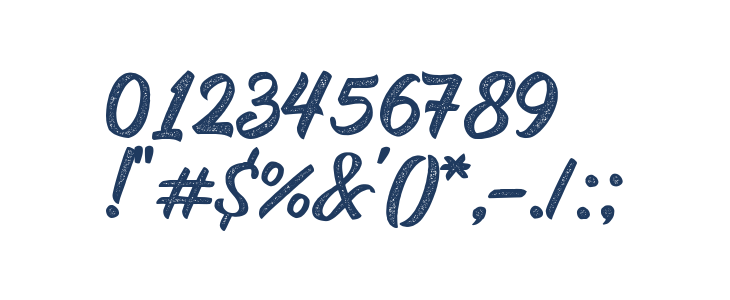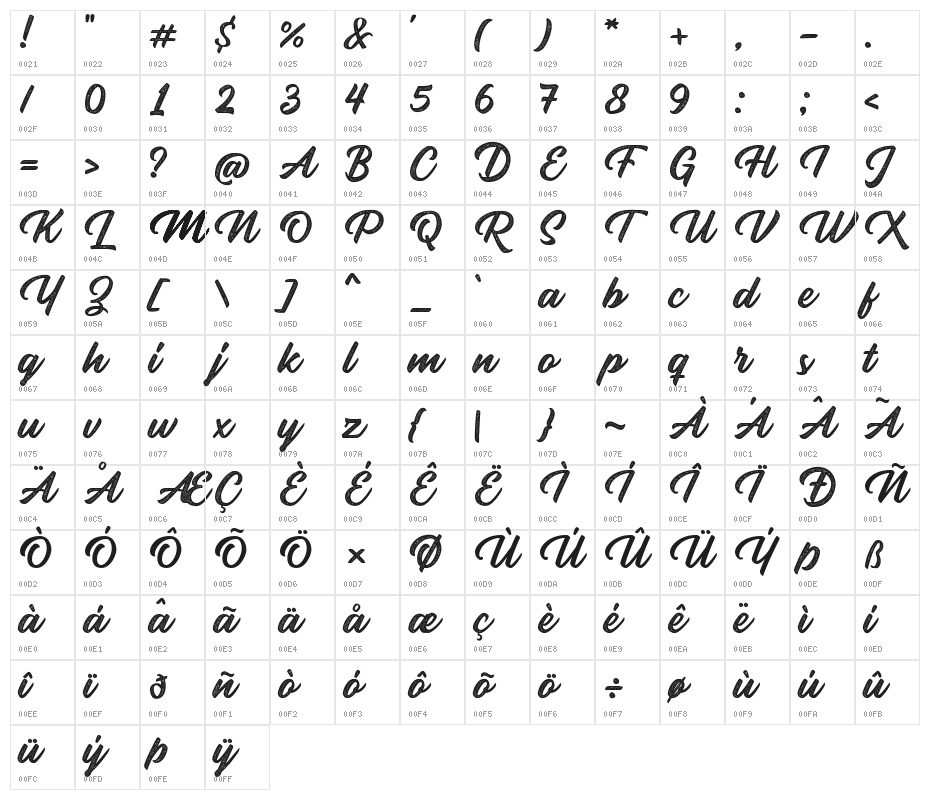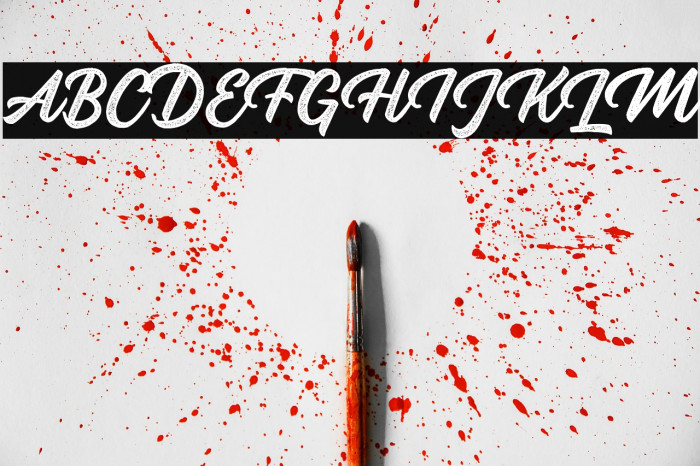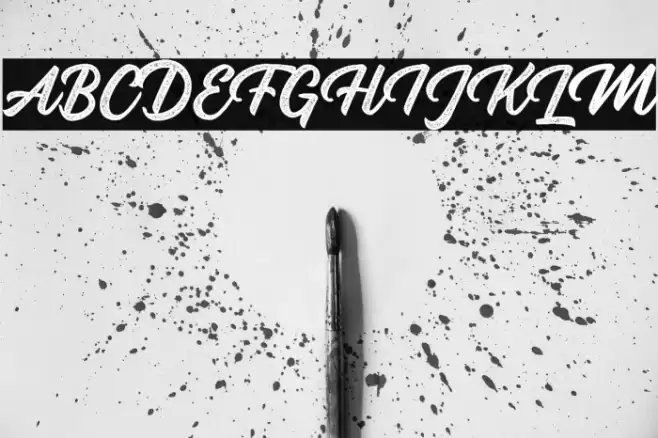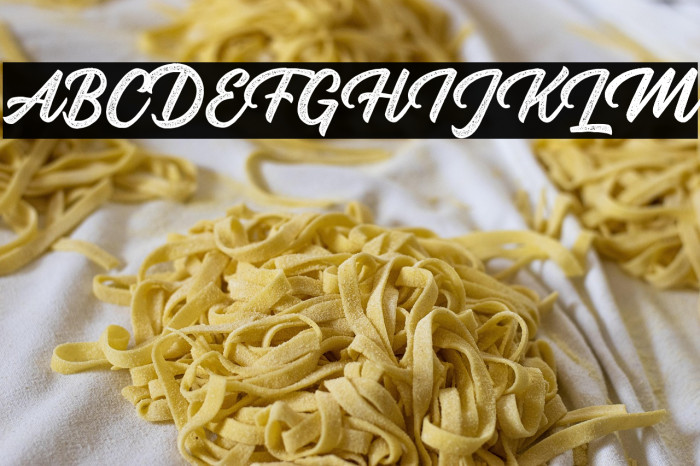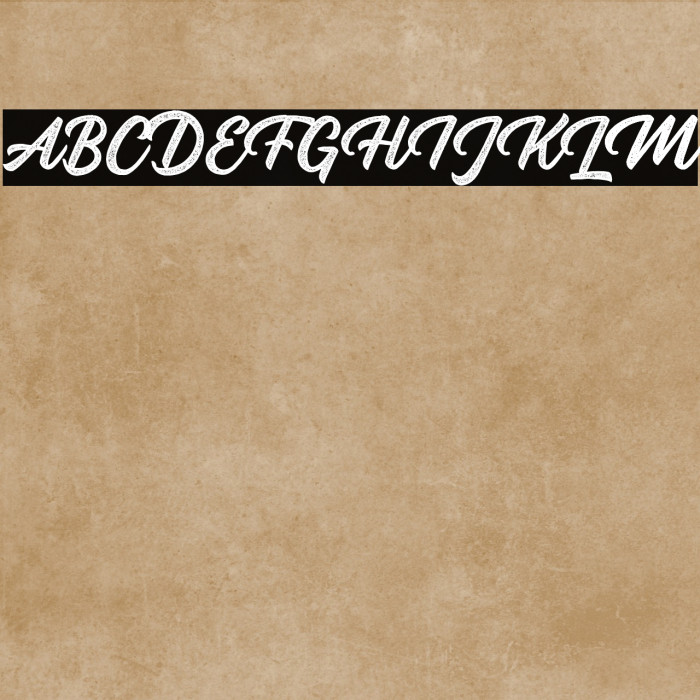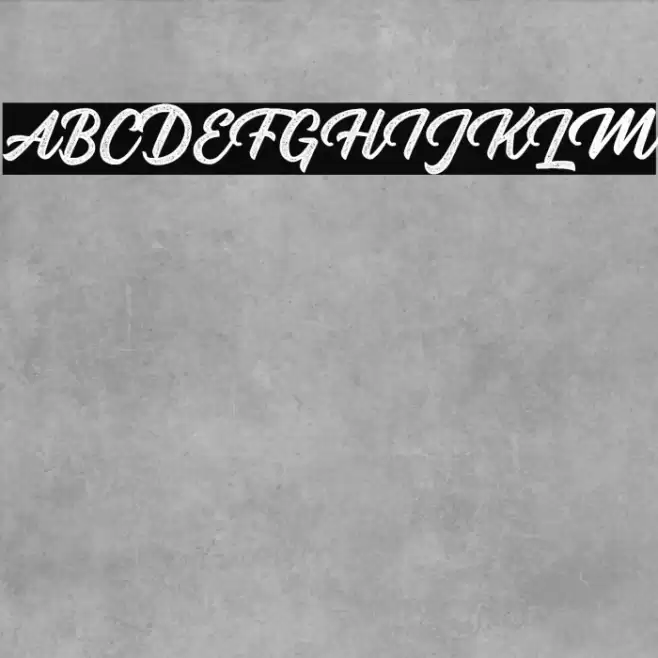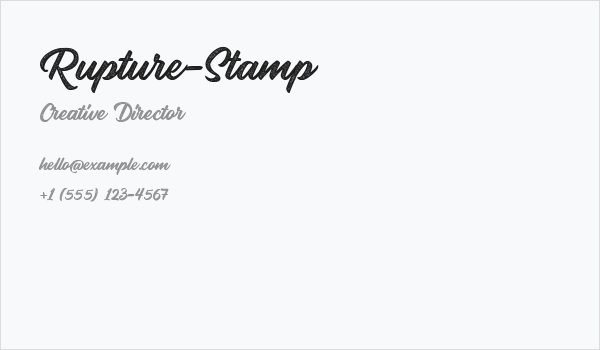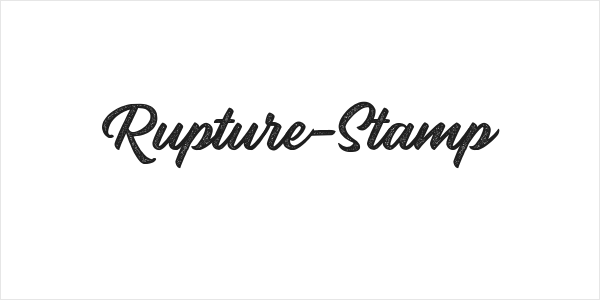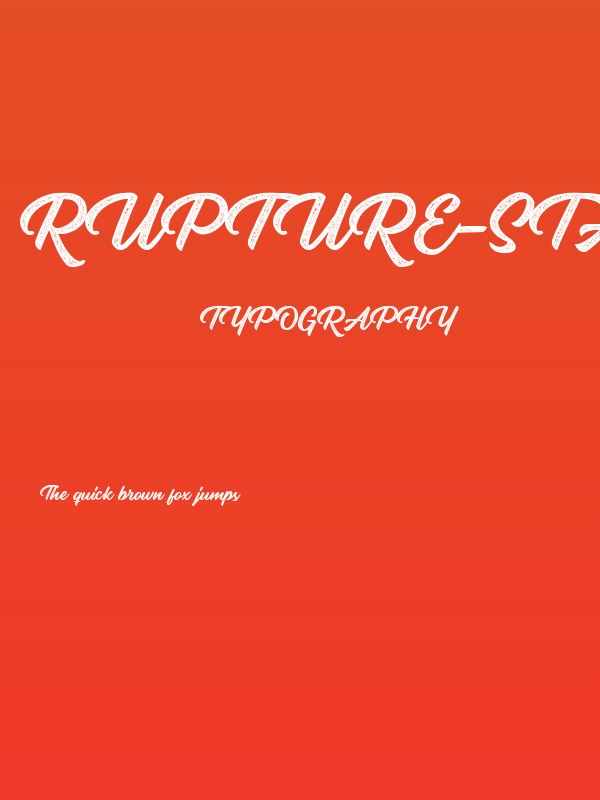
Rupture-Stamp Font
Rupture-Stamp Description
This font exudes a bold and dynamic presence with its script style, characterized by fluid, connected strokes that mimic the elegance of cursive handwriting. The textured, distressed appearance adds a vintage, rustic charm, making it stand out with a unique personality. The uppercase and lowercase letters maintain a consistent flow, while the numerals and special characters complement the overall aesthetic with their cohesive design. The font's playful yet sophisticated style makes it versatile for various creative applications.
| Proposed Projects | Ideal for branding, invitations, posters, and packaging designs that require a touch of elegance and personality. |